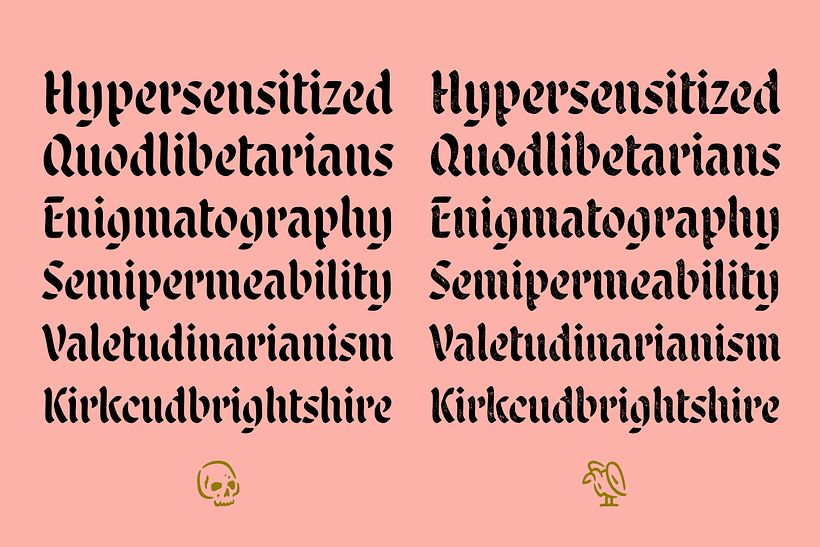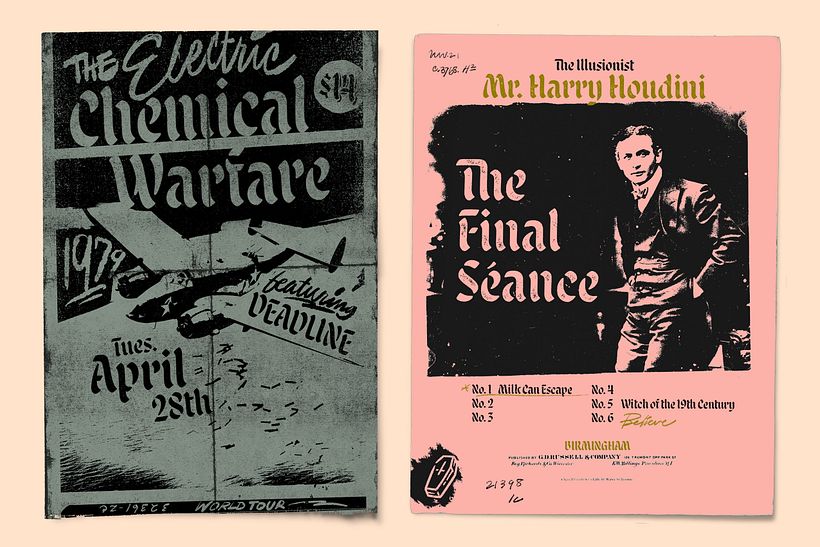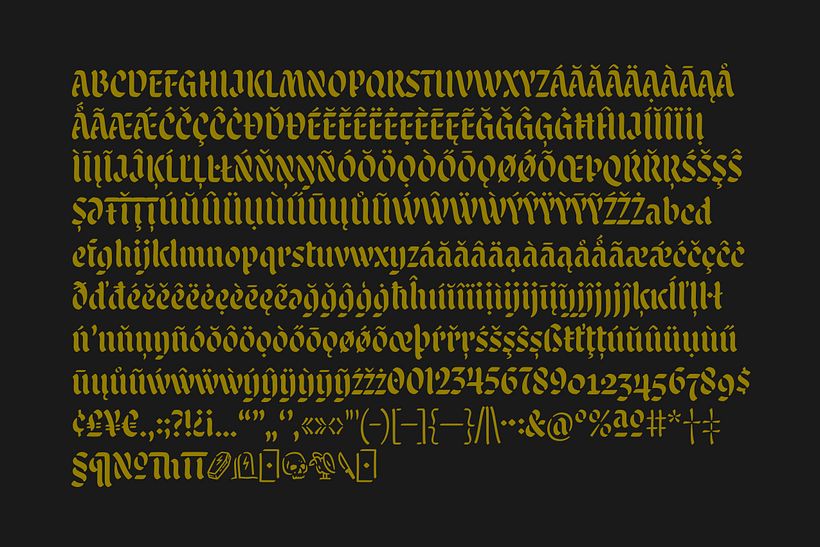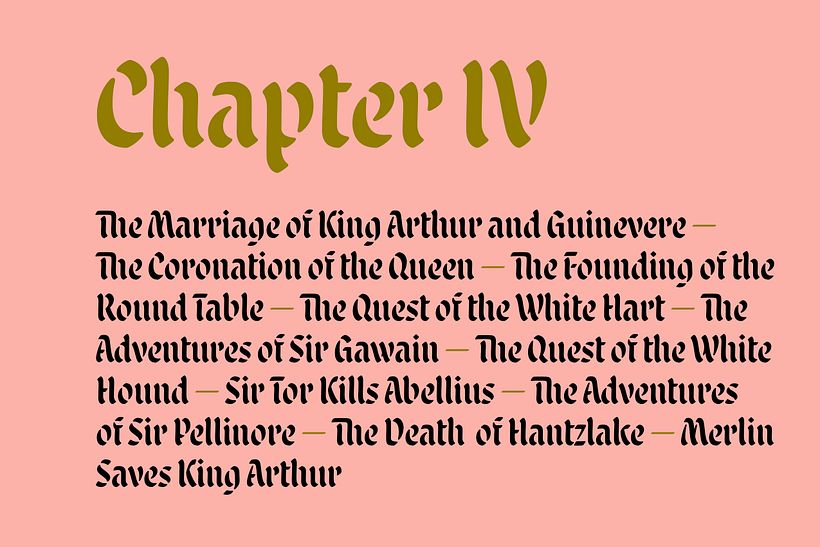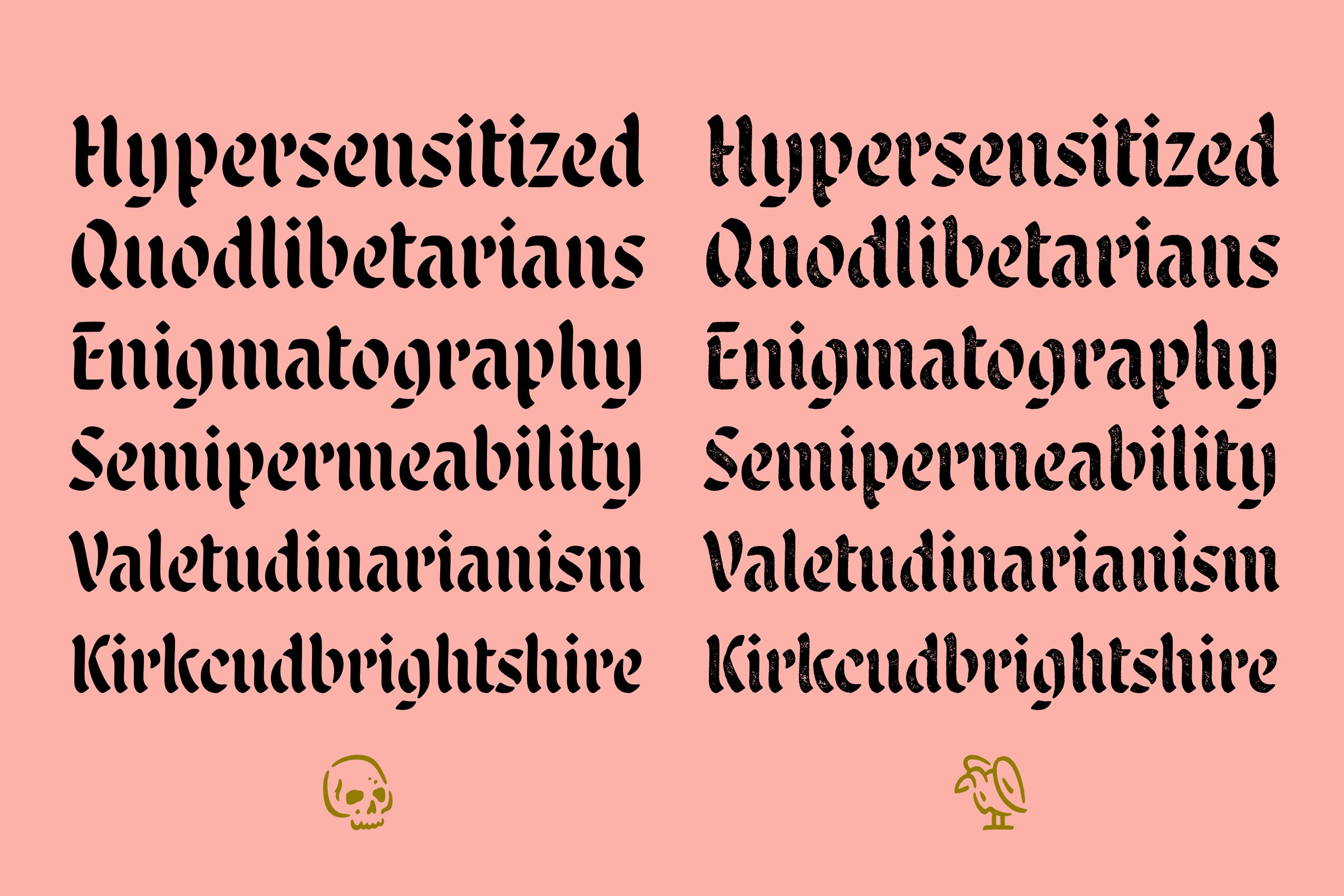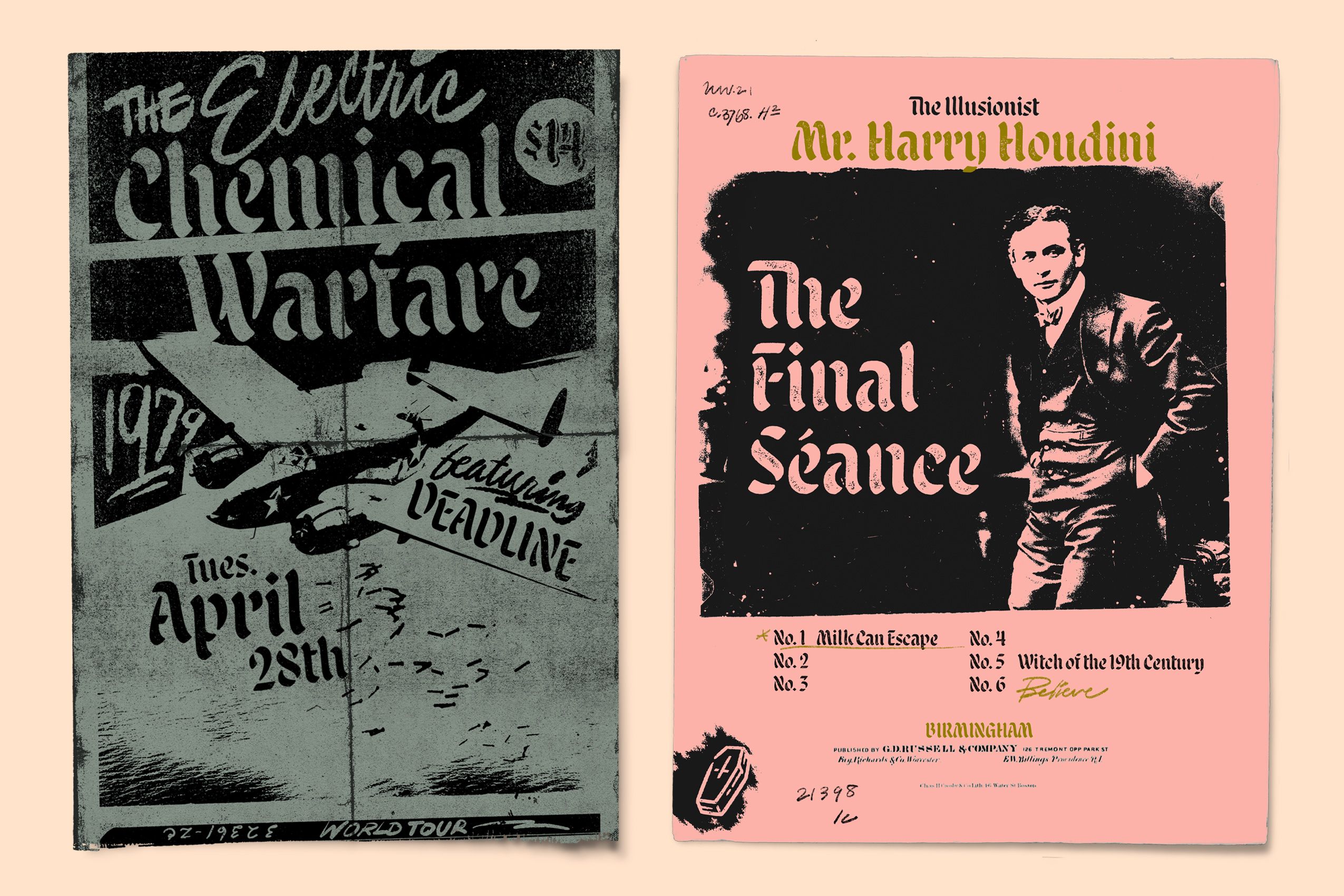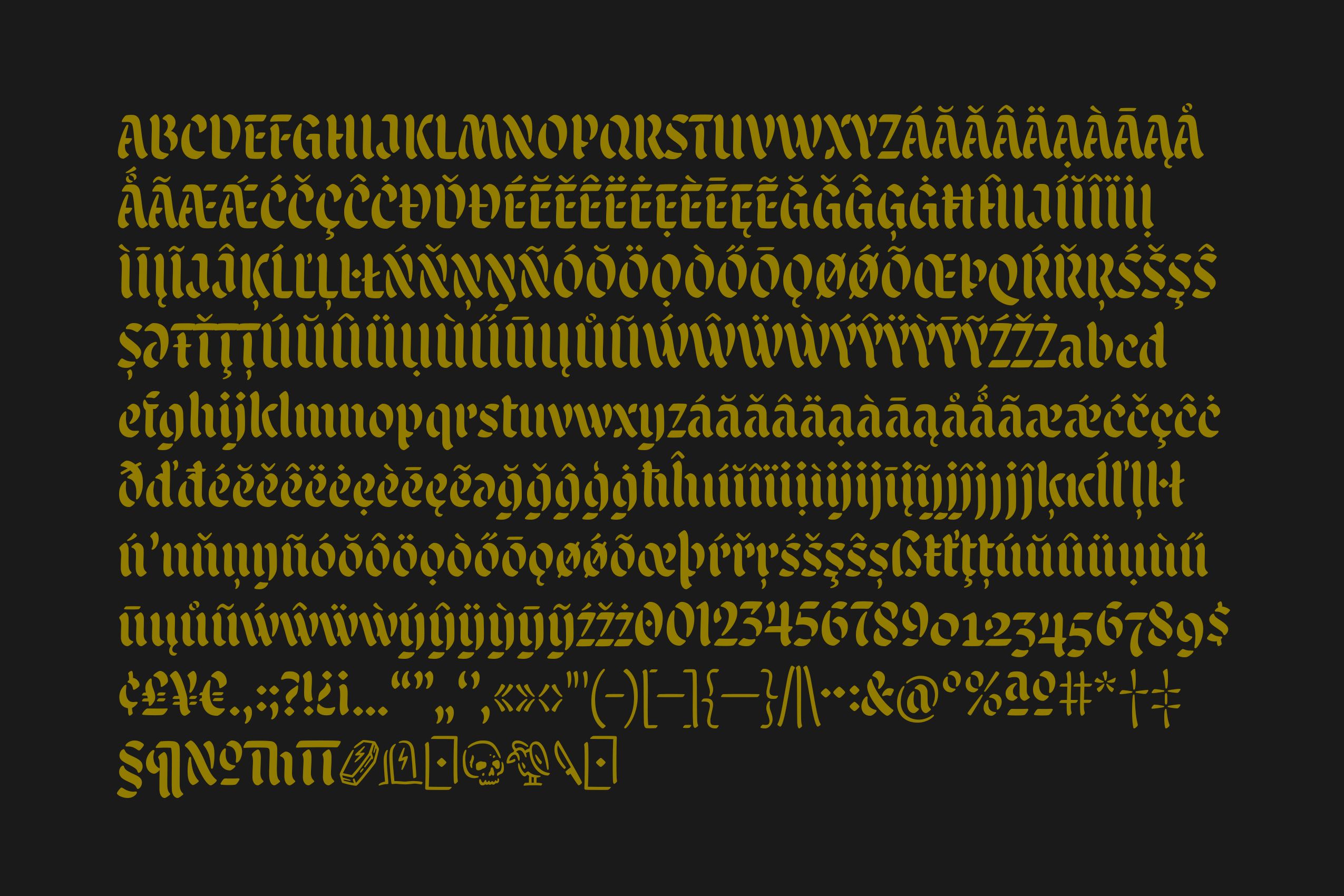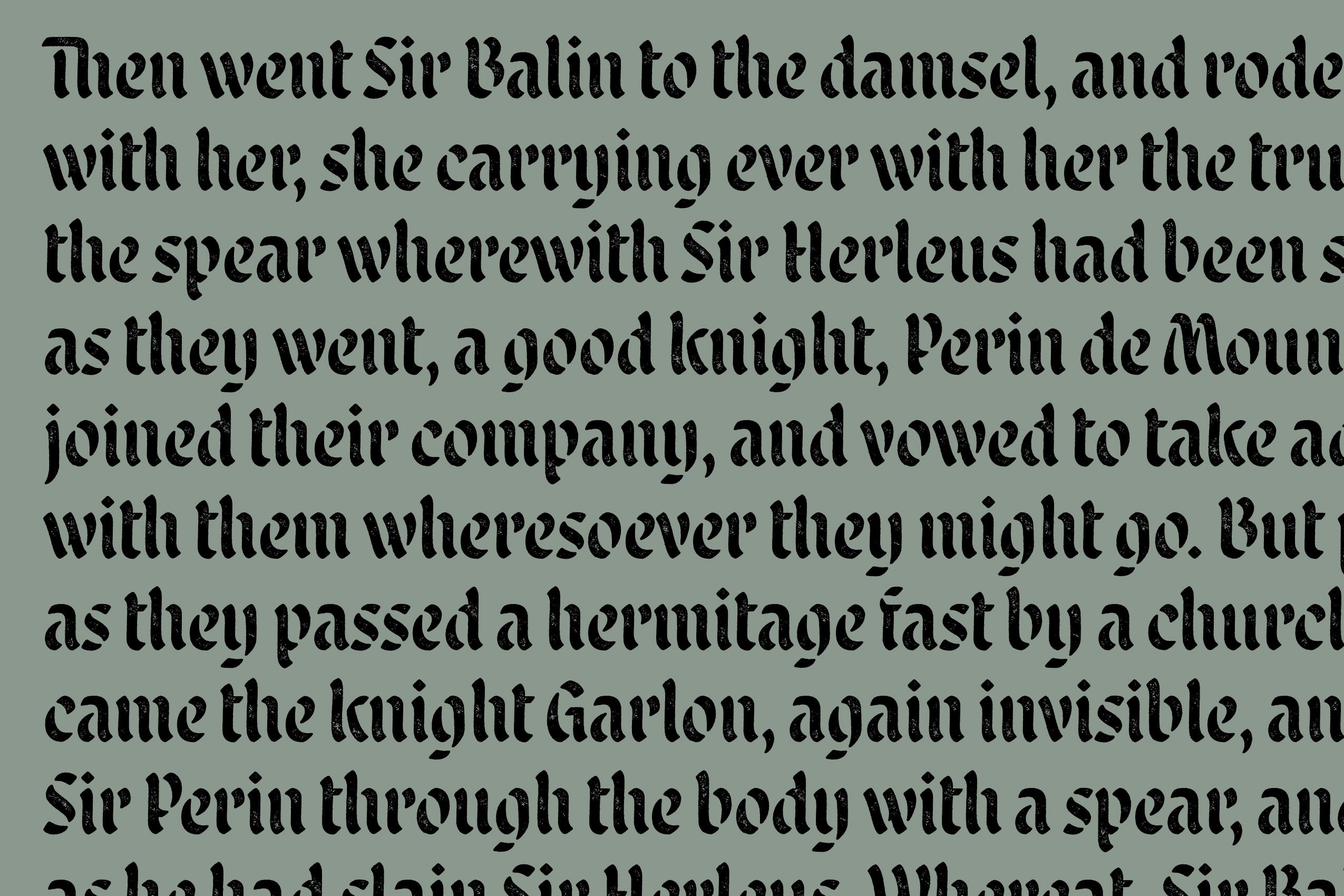
Malice Stencil Typeface
Malice Stencil is a calligraphic blackletter-inspired typeface with a modern approach. The undulating stems and soft rounded forms gives the stencil a soft touch while still able to throw down in the mosh pits. You can let Malice Clean hold its own while Malice Rough does the heavy-lifting on grungy band posters, halloween decor or occult book covers.